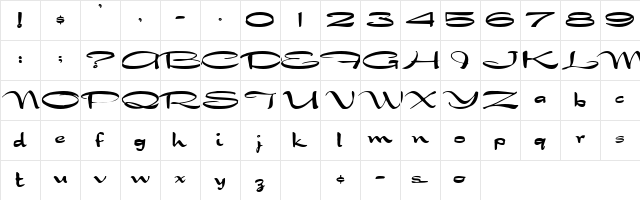
Dragonwick (Plain)
Style: (Plain)
Dragonwick Family
Dragonwick (Plain)
Design Context for Dragonwick
Dragonwick is a composed and adaptable typeface that performs quietly and consistently across a wide range of design contexts.